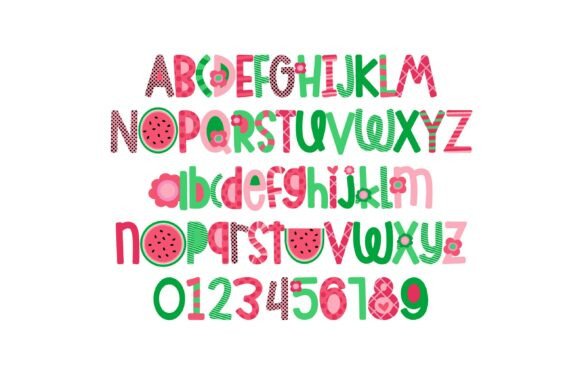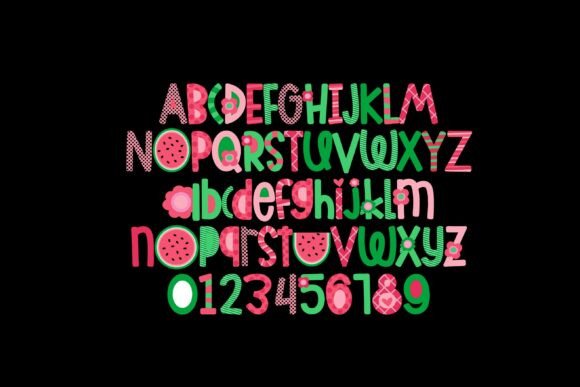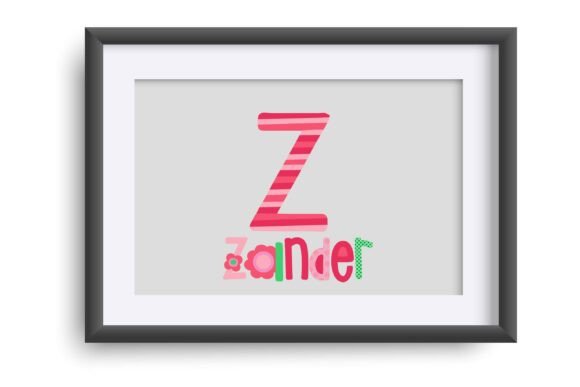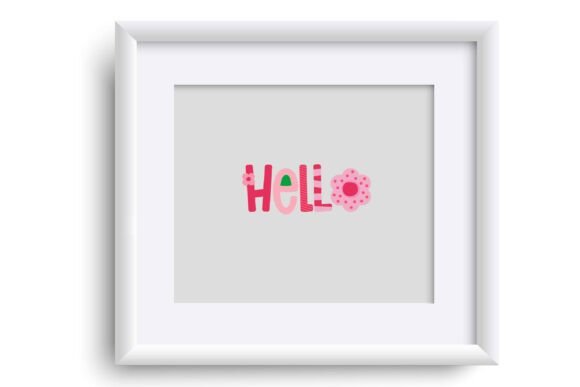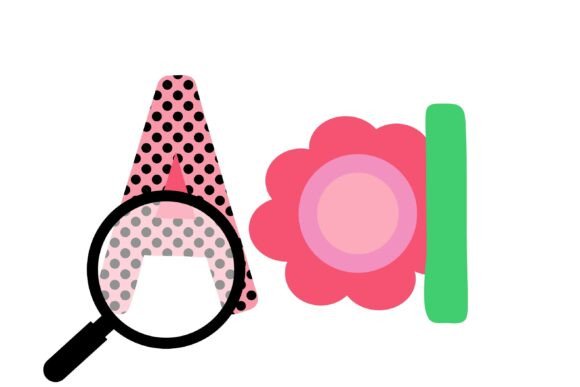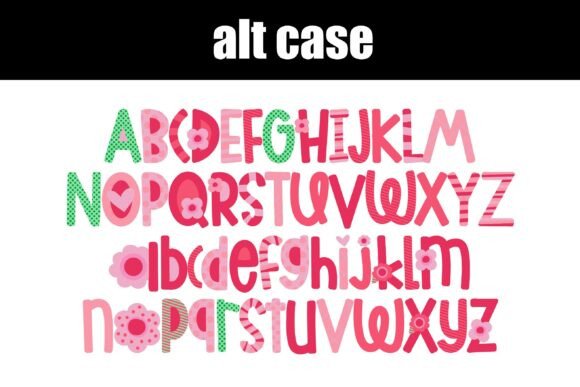
Introduction to Melon Precious Font
Melon Precious | Whimsical Patterned SVG Font Celebrate the joy of “maximalist-cute” with Melon Precious, an eclectic and playful display font.
Every character in this collection is a unique work of art, adorned with hand-drawn polka dots, stripes, floral charms, and heart accents With its “scrapbook-chic” soul and high-energy rhythm, Melon Precious is the premier choice for children’s boutique stationery, personalized teacher resources, DIY craft projects, and “preppy-core” social media overlays.